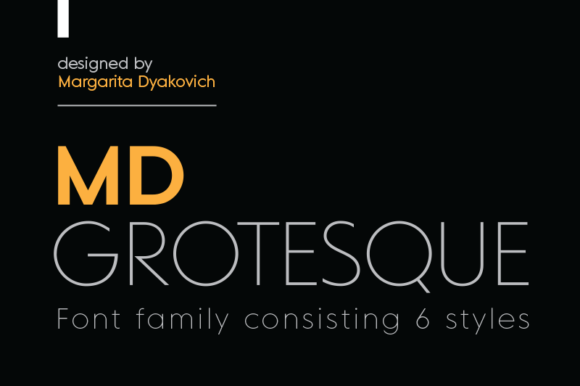
Introducing MD Grotesque Font, a captivating sans serif font family that exudes modernity and sophistication. Created by the talented Margarita Dyakovich, MD Grotesque is a versatile font that empowers you to bring your creative visions to life.
With its clean lines, sharp angles, and subtle curves, MD Grotesque radiates a contemporary aesthetic that elevates any design project. Its versatile nature makes it a perfect choice for a wide range of applications, from branding and web design to packaging and editorial projects.
Immerse yourself in the world of MD Grotesque and discover the endless possibilities it offers. Its crisp and legible letterforms ensure clarity and readability, even in small sizes, making it an excellent choice for user interfaces, presentations, and infographics.
Step into the realm of uniqueness and make a bold statement with MD Grotesque. Its distinctive character adds a touch of personality and charisma to your designs, setting them apart from the ordinary. Its ability to adapt seamlessly to various design styles makes it a true chameleon, effortlessly blending with your creative vision.
Unlock your creativity and explore the boundless potential of MD Grotesque. Its versatility extends to both print and digital media, allowing you to captivate audiences across multiple platforms. From eye-catching headlines and logos to elegant body copy and engaging social media posts, MD Grotesque empowers you to craft a cohesive and visually stunning brand identity.
Join the ranks of creative professionals who have embraced the allure of MD Grotesque. Its modern and stylish appearance is sure to leave a lasting impression on your audience, evoking emotions and inspiring connections. Don't settle for ordinary fonts; elevate your designs with MD Grotesque and unlock a world of creative possibilities.